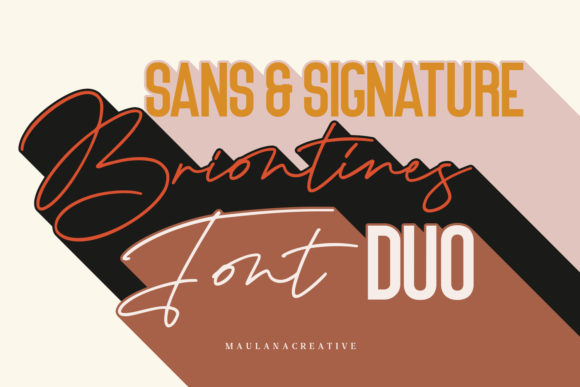
The Briontines Font: A Match Made in Heaven for Designers
I’ll never forget the moment I stumbled upon the Briontines font duo. I was working on a wedding invitation project, and my client had a very specific vision – elegant, sophisticated, and eye-catching. I had been searching for the perfect font for hours, but nothing seemed quite right. That was until I saw Briontines. It was like a breath of fresh air – the perfect blend of modern and classic, with a touch of whimsy. I knew immediately that it was the one.
• ✨ Elegant and sophisticated design that’s perfect for high-end projects
• ✅ Highly versatile – works well for branding, headings, wedding designs, invitations, signatures, logos, labels, and more
• 💫 Beautifully crafted with attention to detail, making it a joy to work with
• 📚 Includes a range of OpenType features, glyphs, and stylistic alternates to add depth and creativity to your designs
While Briontines is an amazing font, there are a few things to keep in mind:
• 🤔 Some users may find the font a bit too ornate for certain projects – but this is also what makes it so special!
The Story Behind Briontines
While the exact story behind Briontines is shrouded in mystery, it’s clear that the designers who created this font duo were on a mission to craft something truly special. With its elegant lines, beautiful swashes, and attention to detail, Briontines is a testament to the power of typography to elevate and transform any design project.
Q: What makes Briontines so special?
A: Briontines is a unique and elegant font duo that’s perfect for high-end design projects. Its beautiful lines, swashes, and attention to detail make it a standout choice for designers and crafters.
Q: Is Briontines easy to read?
A: While Briontines is an ornate font, it’s still surprisingly legible – making it perfect for headings, titles, and short texts.
Q: Can I use Briontines with other fonts?
A: Absolutely! Briontines pairs well with a range of fonts, from simple sans-serifs to elegant scripts. Experiment with different combinations to find the perfect look for your project.